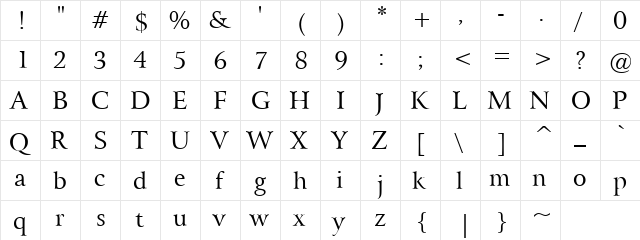
regalia BI Regular
Design Context for regalia BI Typeface
regalia BI takes a measured approach to typography — its balanced proportions and neutral character make it a reliable workhorse for both digital and print work.